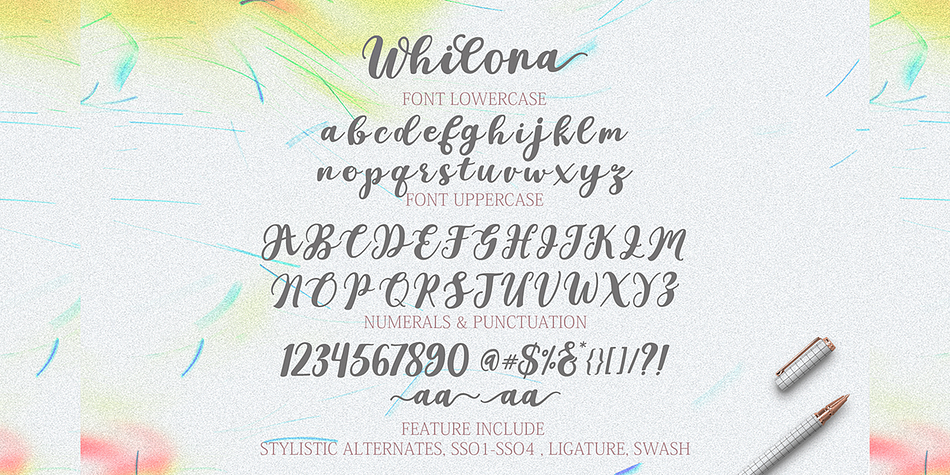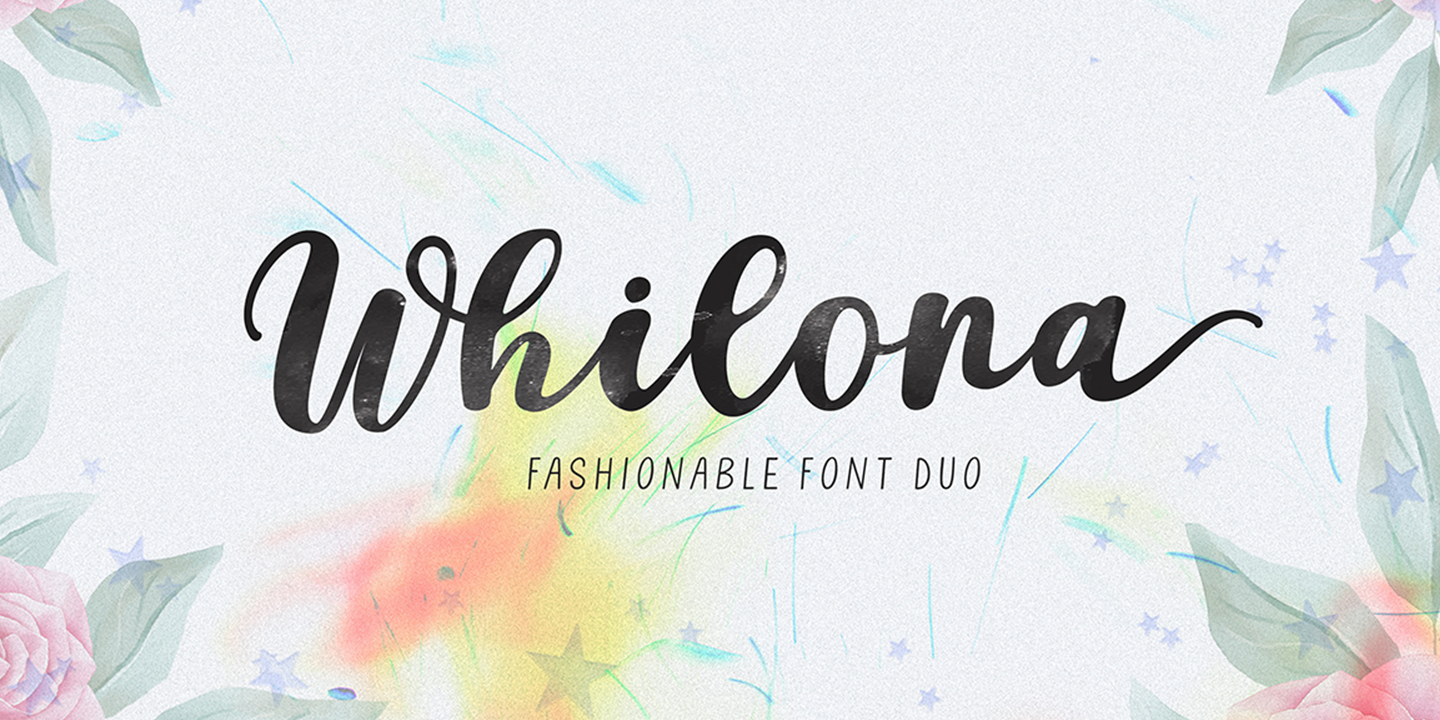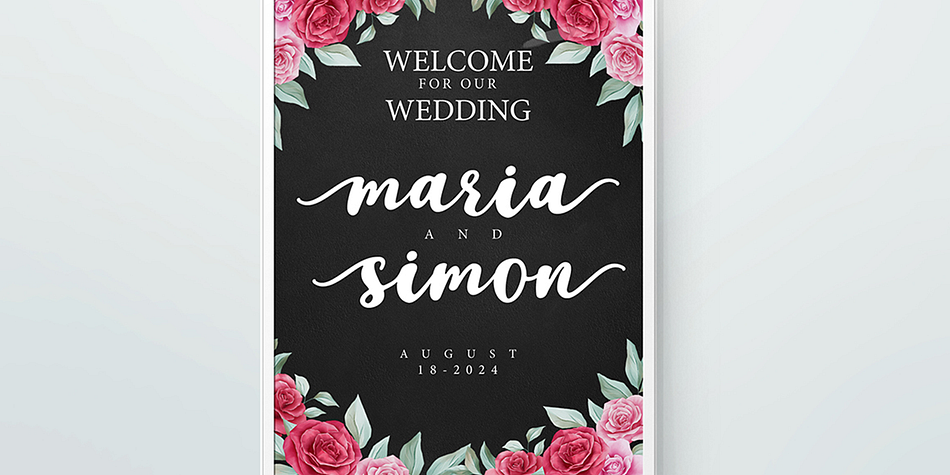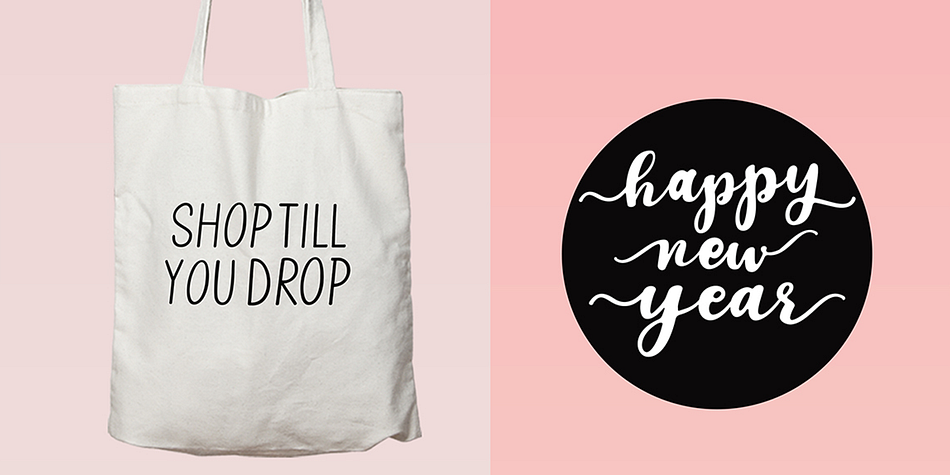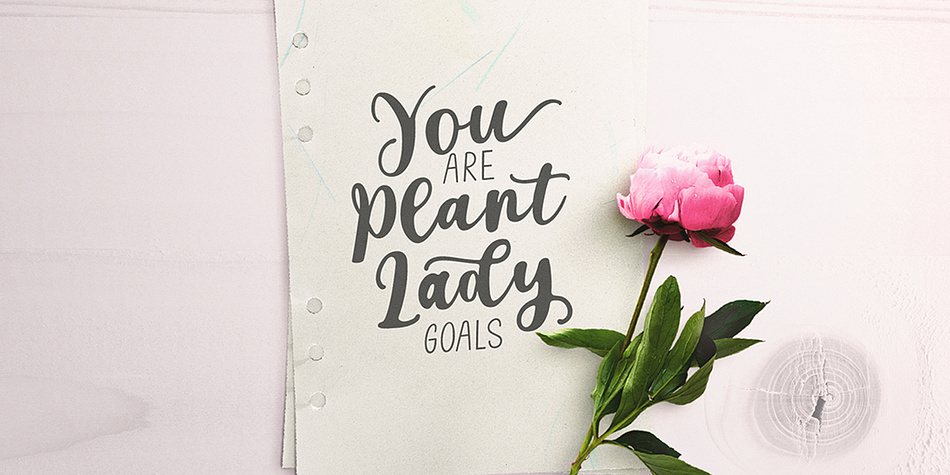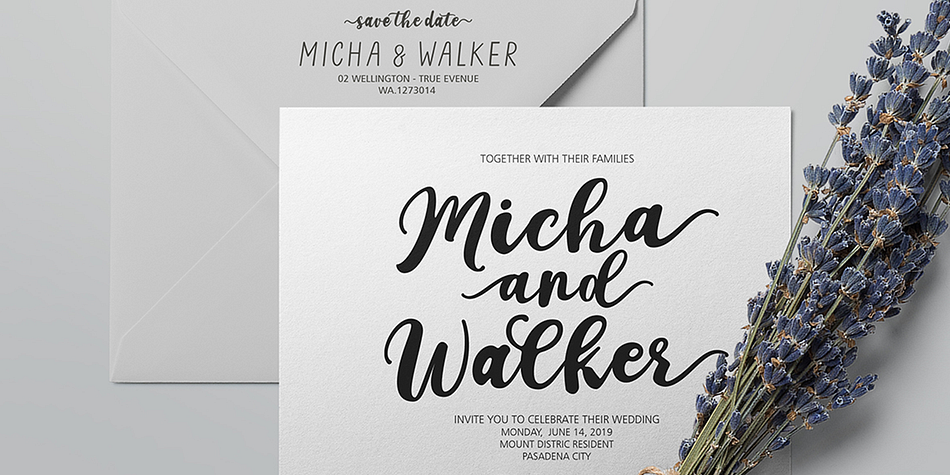
Whilona
Whilona is a brush script and hand drawn font family. This typeface has two styles and was published by Gatype.
Whilona Script is a very unique handwriting, the shape is modern but pleasing to the eye and the style is very natural. This font is designed to potentially take any of your creative ideas to the highest level! These designs are used for branding, web and editorial design, print, craft, quotes, Great for logos, wedding invitations, romantic cards, labels, packaging, name spelling and more.